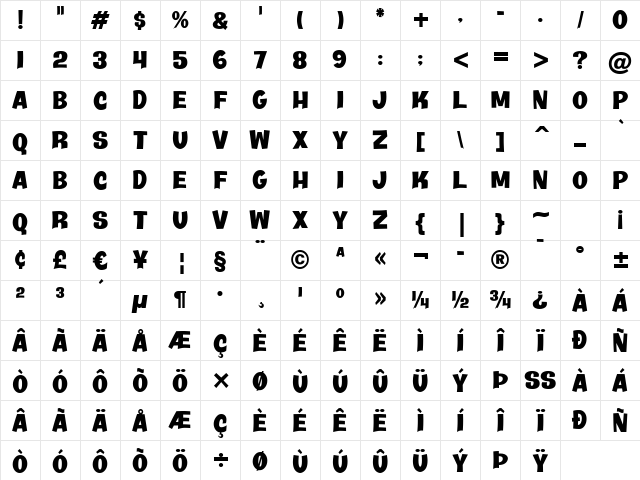
Complete Java Kick BTN Bold glyph index. Displaying only characters natively supported by Java Kick BTN Bold font.
Java Kick BTN is a composed and adaptable typeface that performs quietly and consistently across a wide range of design contexts. Its bold stroke weight gives it real presence on the page.